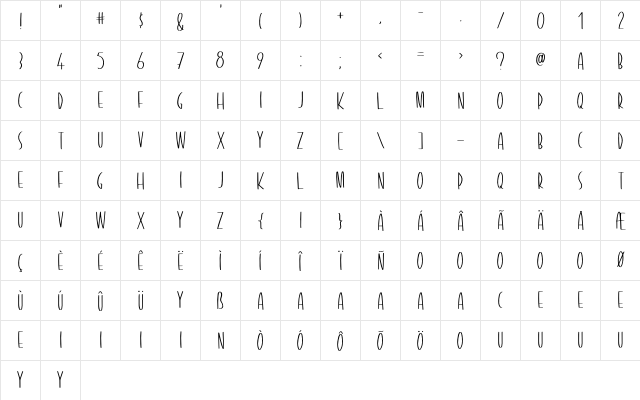
Tiny Trees Regular
| Foundry | Zansari Type |
| Designer | Zaffar Ansari |
Design Context for Tiny Trees Typeface
Tiny Trees is a composed and adaptable typeface that performs quietly and consistently across a wide range of design contexts.